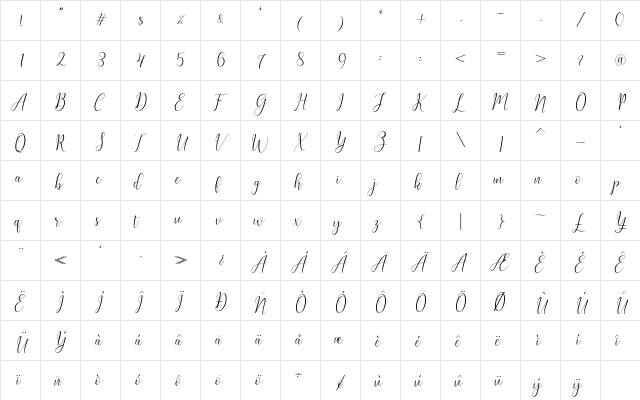
Nostalgia Script Regular
| Foundry | Fajri Adi |
| Designer | Fajri Adi |
Design Context for Nostalgia Script Typeface
Nostalgia Script flows with the natural rhythm of handwritten lettering, making it ideal for designs that call for warmth and personal expression.